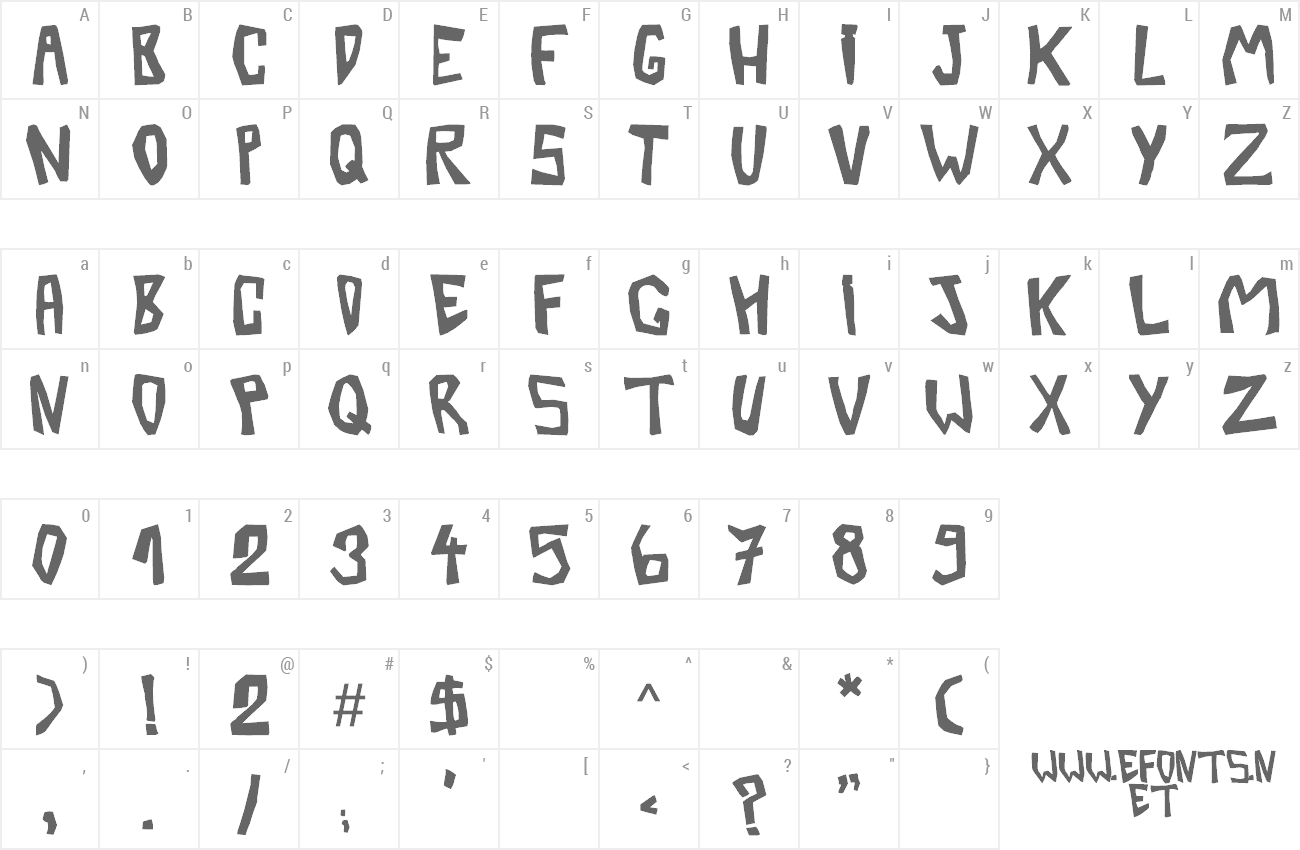
Barbera Twisted is a handdrawn font for punky decorative headlines in 3 styles: Outlines, Blacks and 3D-characters! Its all caps - the small characters are different variants of the caps to mix everything up. (especially handy for double-letters). Be aware to manually adjust the Kerning. I designed it for punking up my theoretical paper for my diploma. The 3-D variants have 2 directions - depending on upper or lower case. also included: äüö and ß. You are free to use it for free and commercial projects. If you find a way to credit me (Gabriel deVue) it is appreciated. |